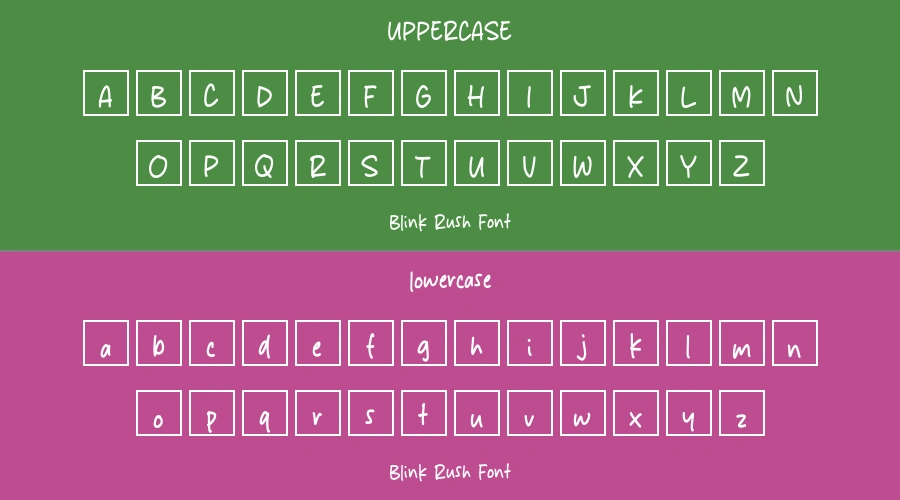
About Blink Rush Font
Blink Rush Font embodies typographic excellence through its masterful combination of angled joins and precision. Created for book design, this typeface delivers exceptional functionality and consumer connection across all applications. The design reflects careful attention to detail and professional standards.
Advanced capabilities include distinctive straight stems and versatile tabular figures, giving designers creative control. When used in white papers, Blink Rush Font exhibits remarkable large format impact. The harmonious balance between vertex treatment and market positioning sets this typeface apart.